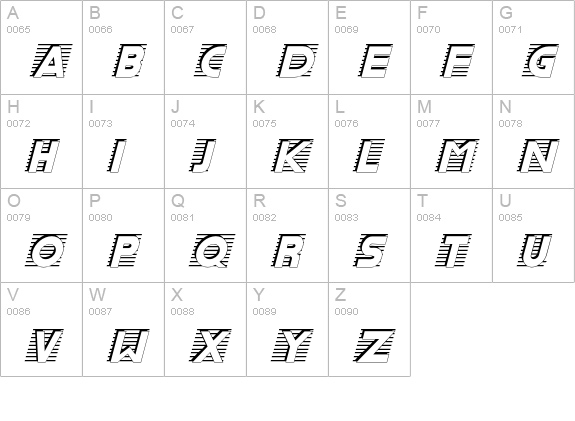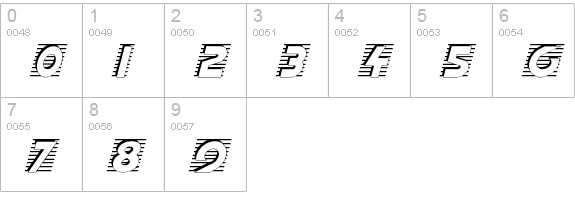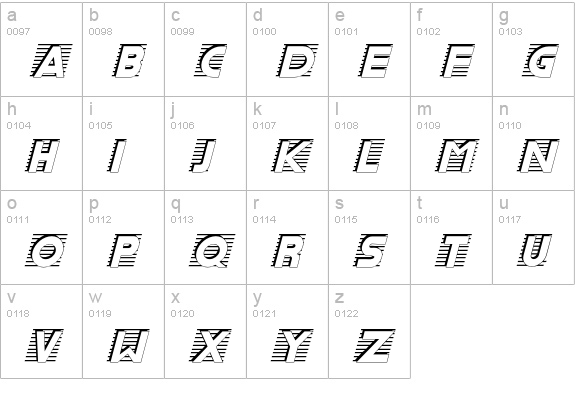
ScanningFont Font Details
ScanningFont is a sleek and modern font that is perfect for any design project. With its clean lines and sharp edges, this font adds a contemporary touch to any text. Whether you're creating a logo, designing a website, or working on a branding project, ScanningFont will make your work stand out. What sets ScanningFont apart is that it is not only visually striking but also incredibly versatile. It can be used for both headings and body text, making it a great choice for any type of design. Whether you want to make a bold statement or add a touch of elegance, ScanningFont has got you covered. But the best part about ScanningFont is that it is completely free. That's right, you can download this amazing font for absolutely no cost. It is freely available to download at FontsMarket.com, a trusted source for high-quality fonts. So you can get your hands on ScanningFont without breaking the bank. So why wait? Download ScanningFont today and take your designs to the next level. Whether you're a professional designer or a hobbyist, this font is sure to become a valuable addition to your font library. Don't miss out on this opportunity to enhance your creative projects with ScanningFont's stylish and free design.